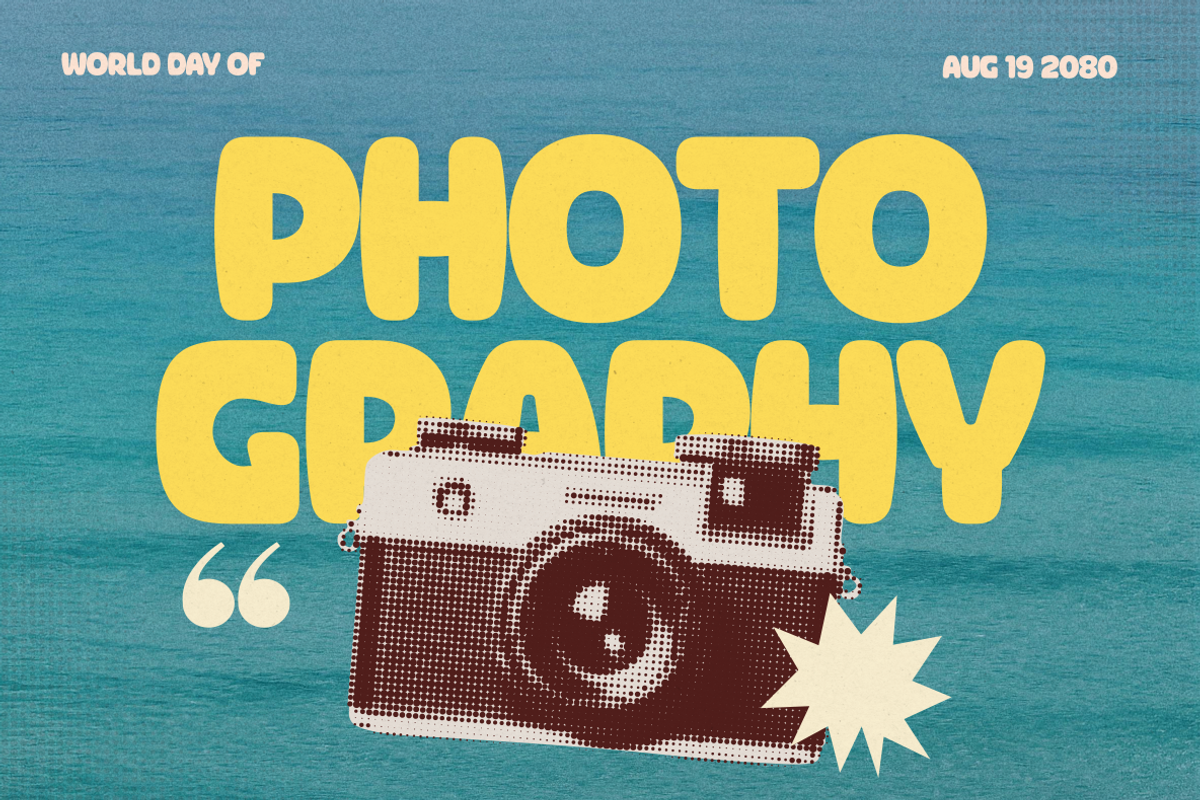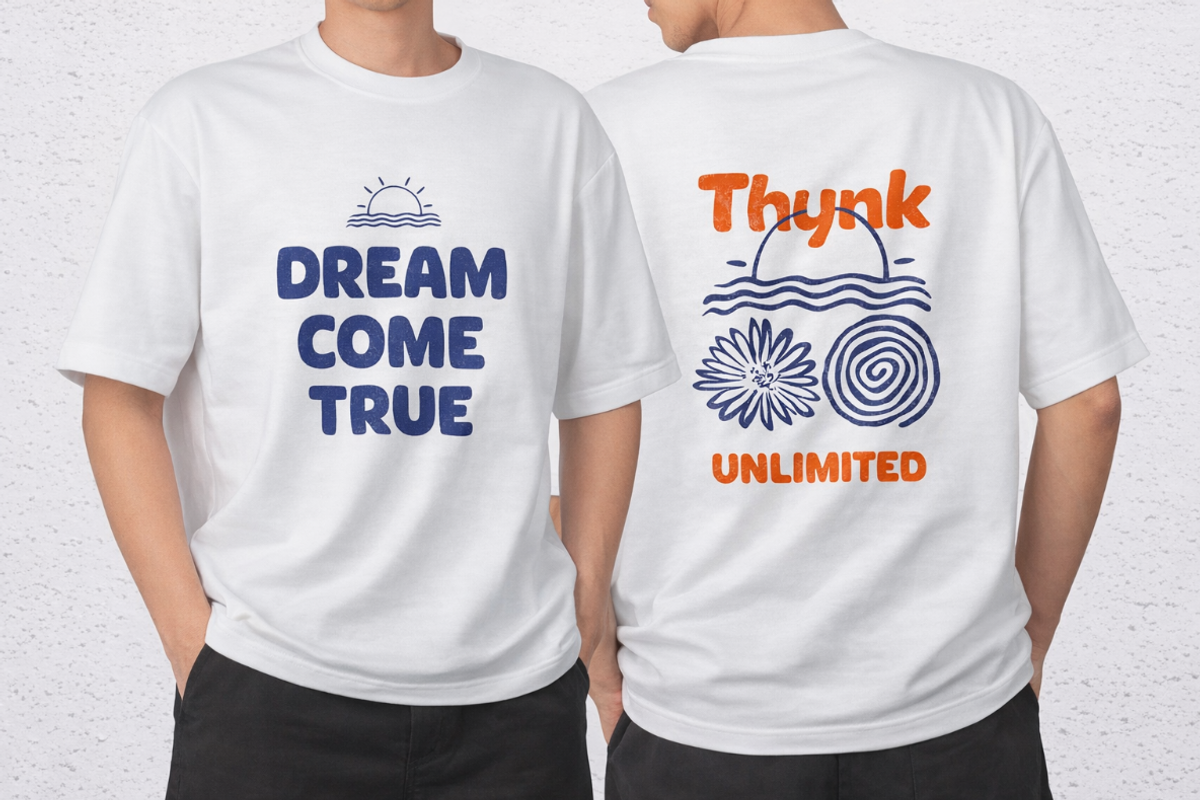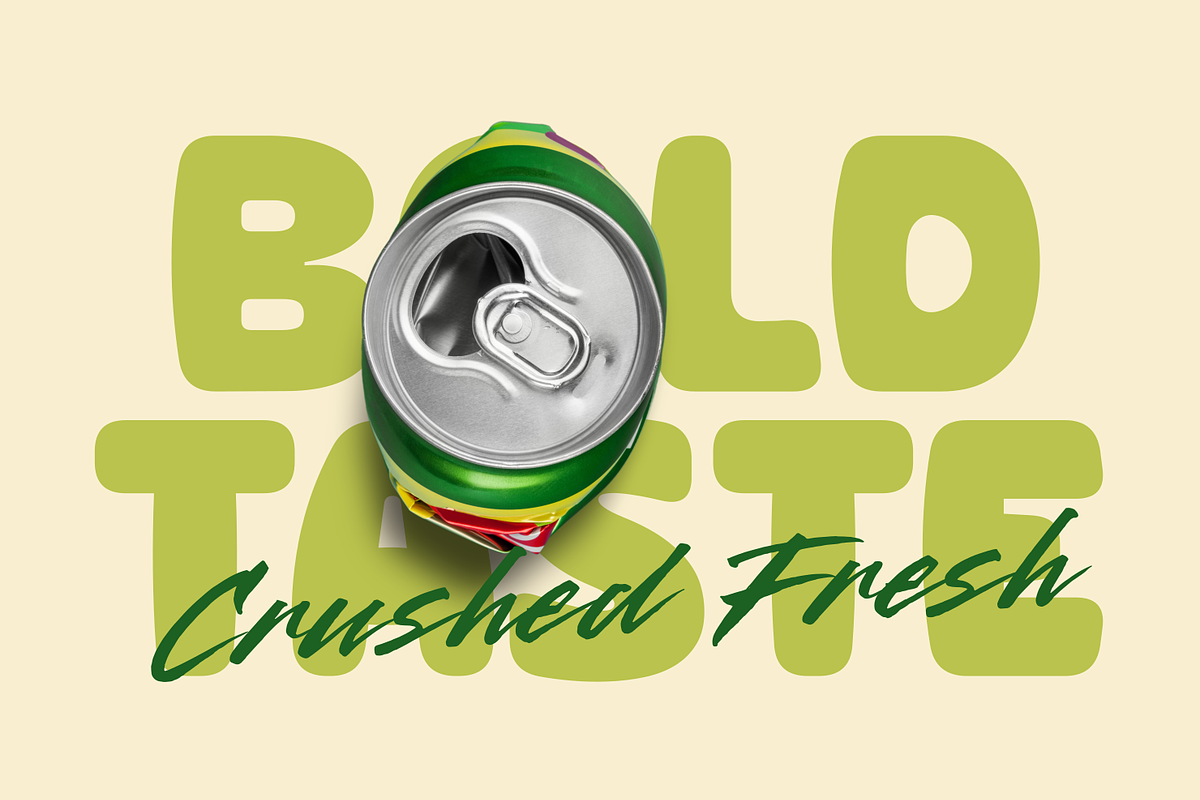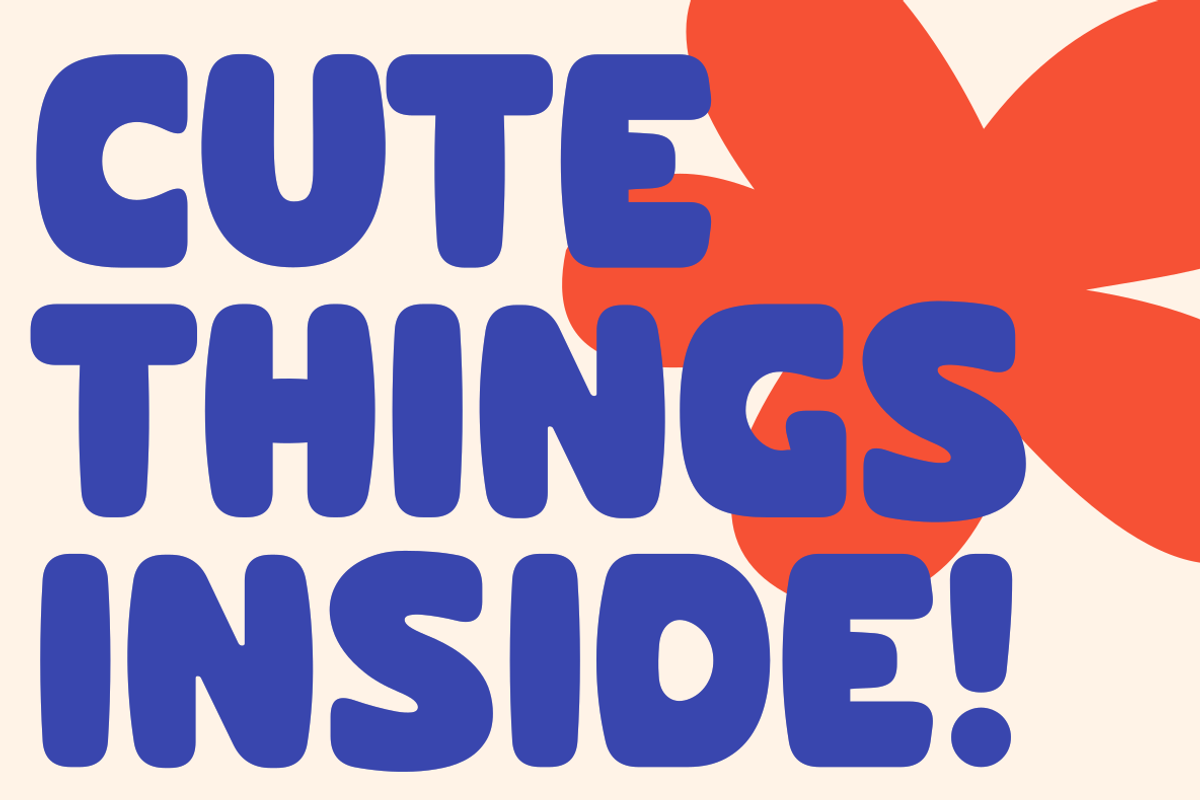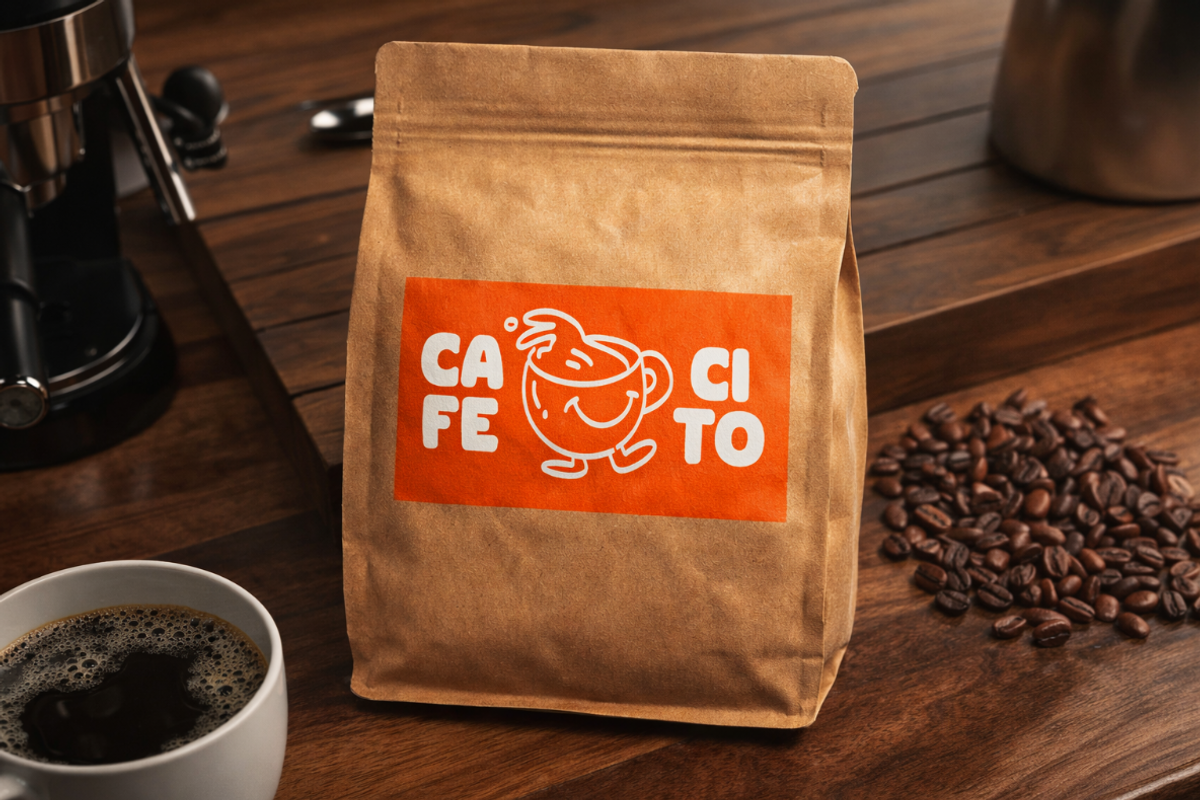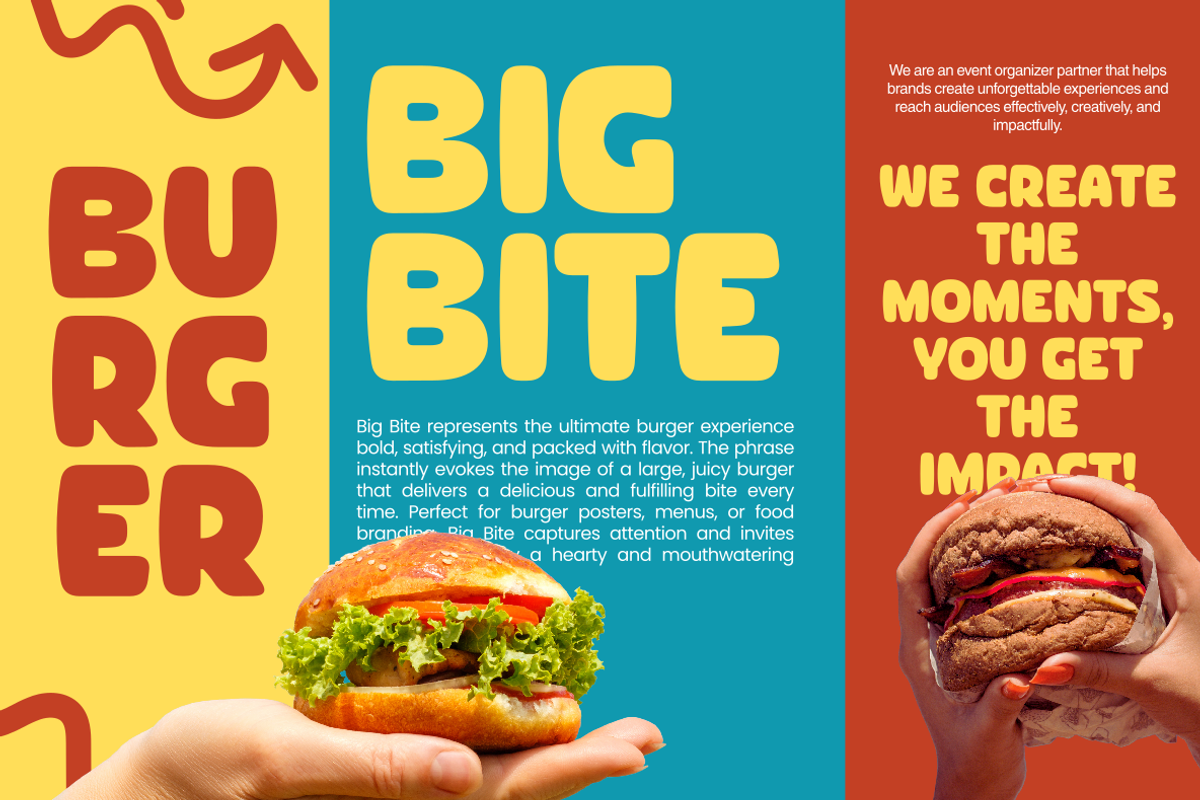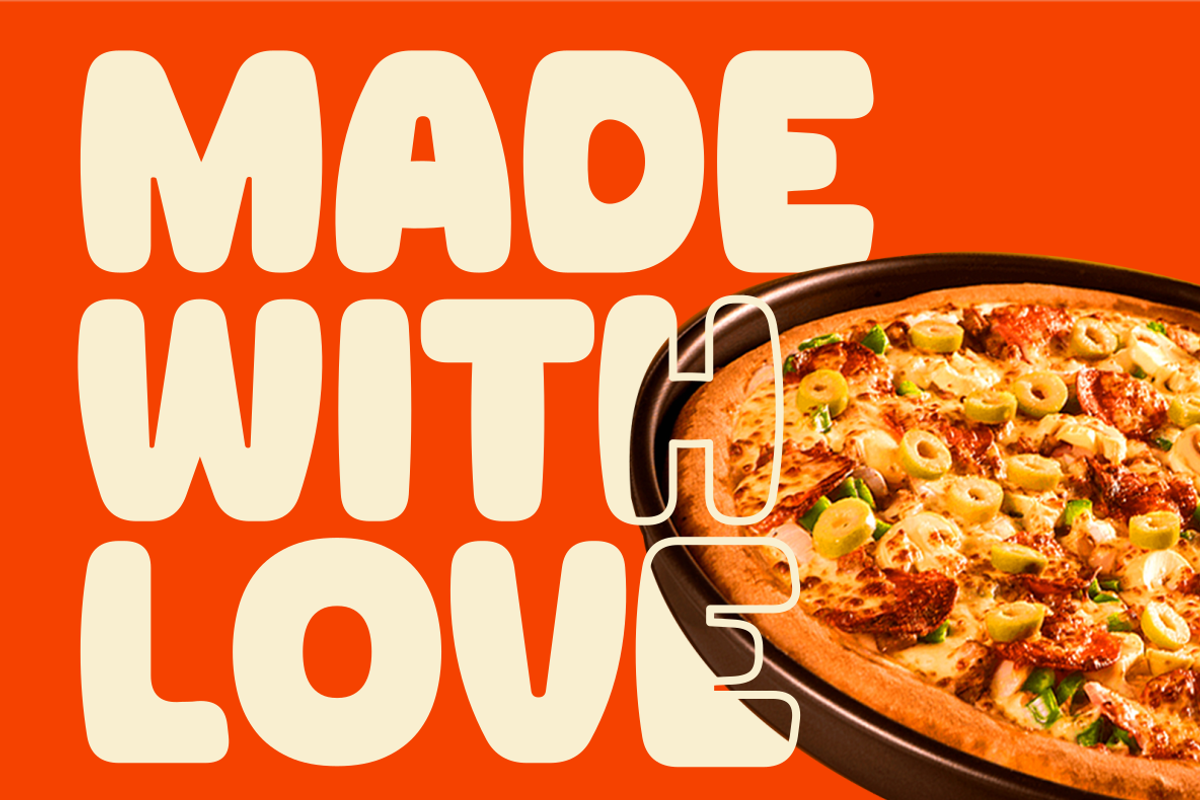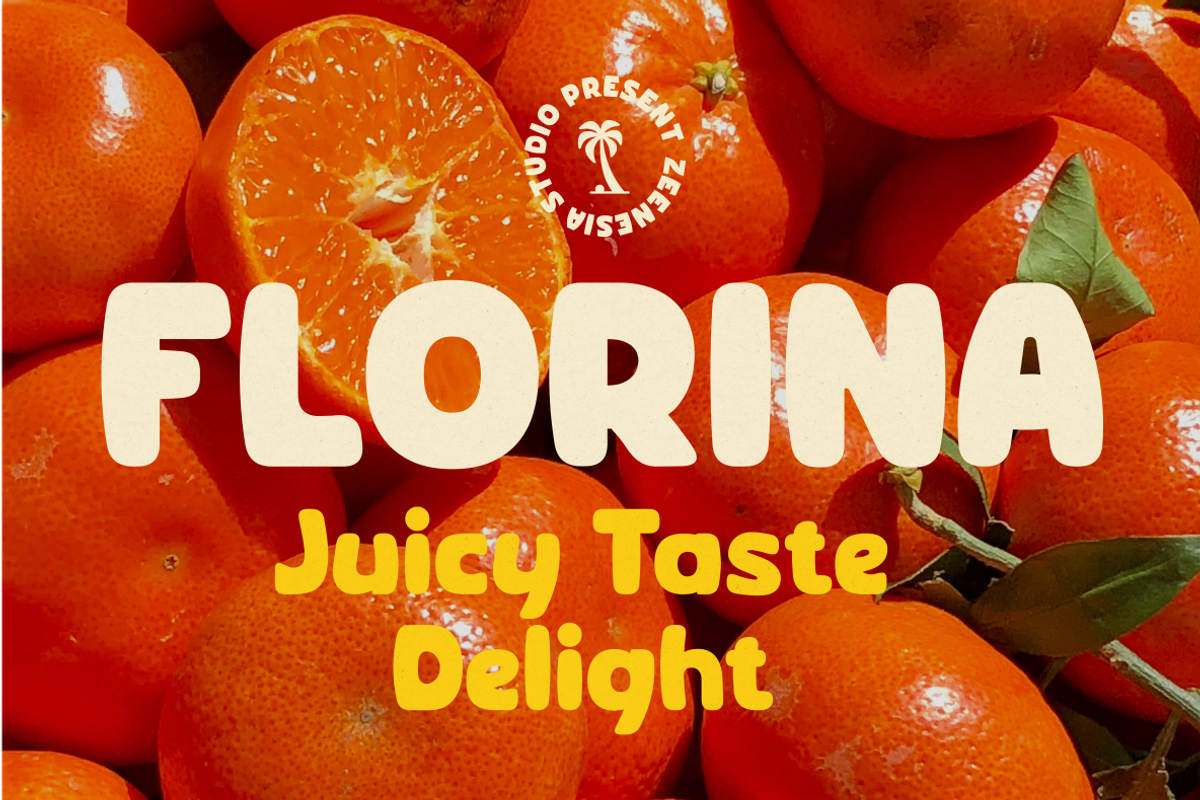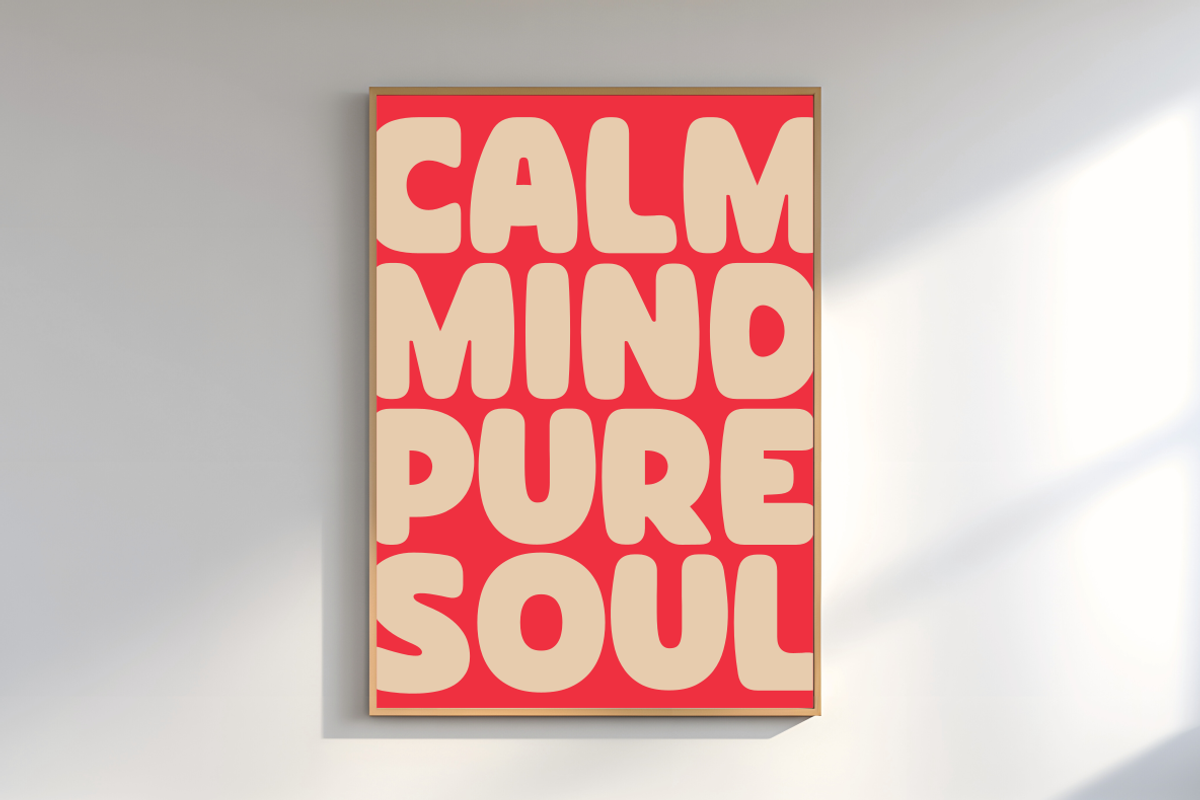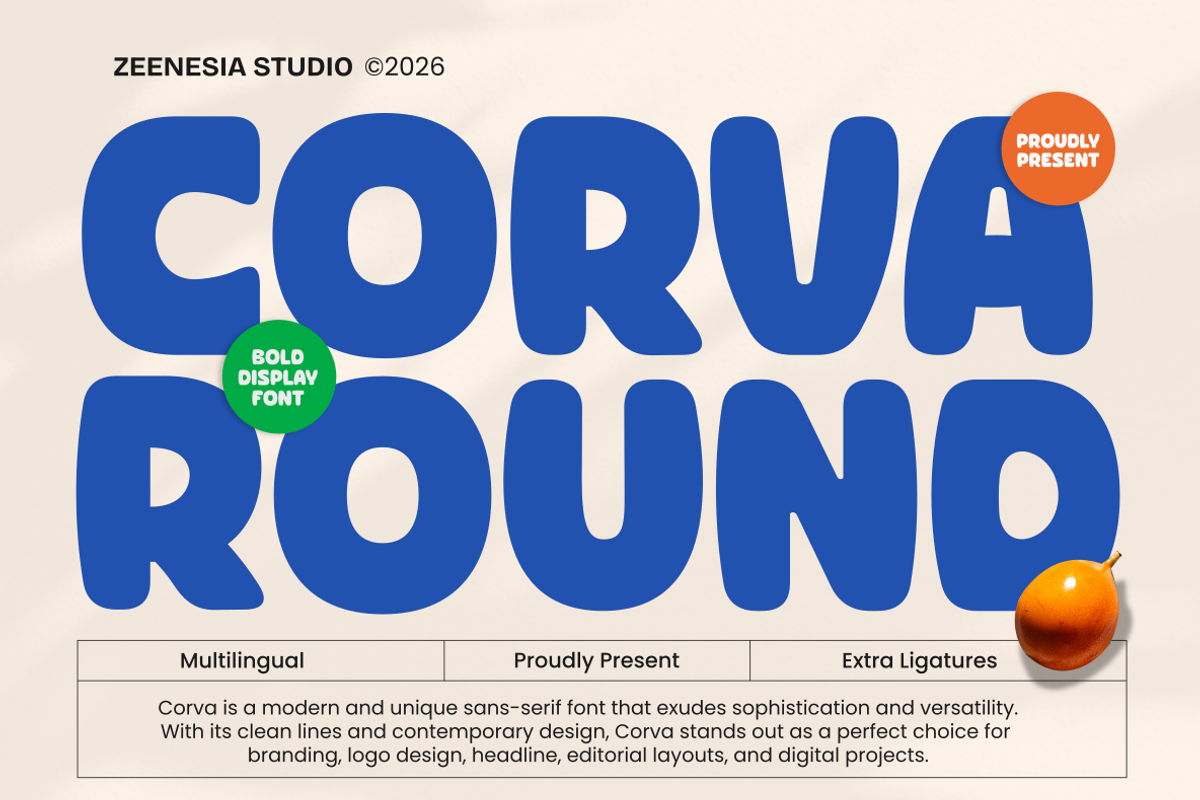
Corva Round
Corva Round is a modern rounded display font that blends bold structure with smooth, friendly curves. Its clean and playful style makes it perfect for creating eye-catching typography while keeping a modern and approachable feel. Corva Round works beautifully for branding, headlines, packaging, and digital design projects.
Perfect for: • Logos & Branding • Posters & Headlines • Packaging Design • Social Media Graphics • Editorial Layouts